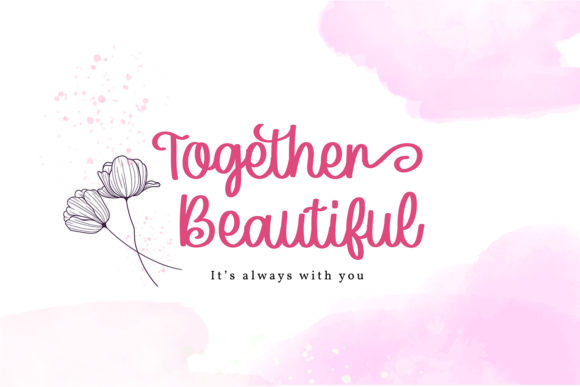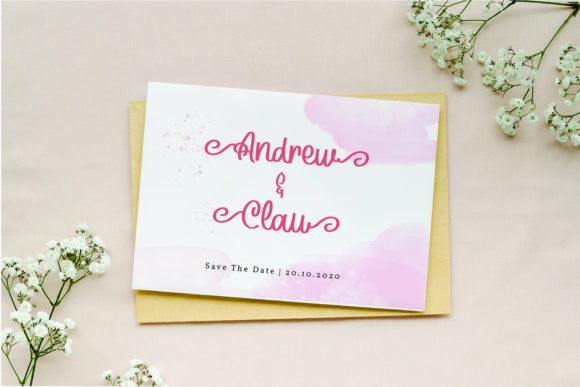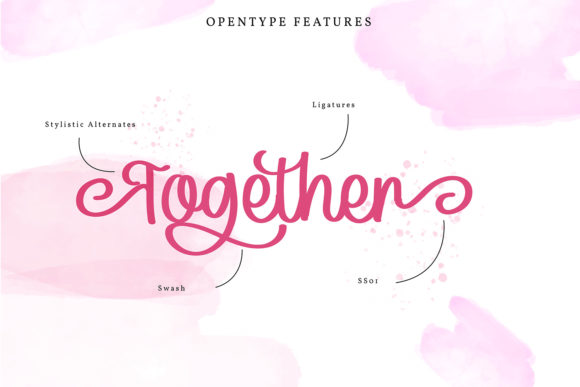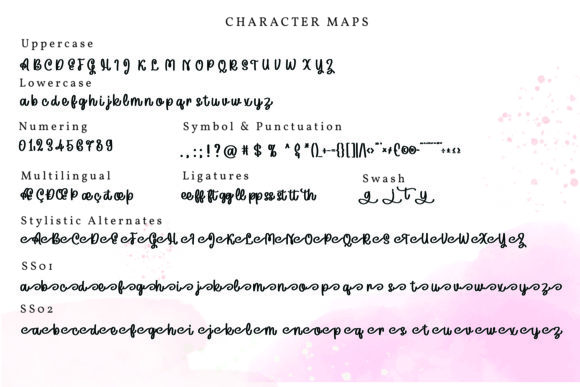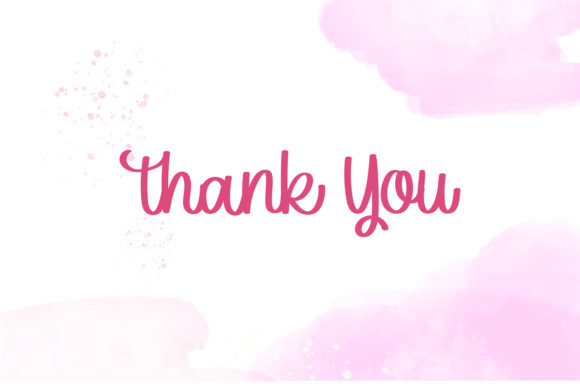
Introduction to Layvin Font
Have you ever found yourself staring at a blank canvas, a blank page, or a blank screen, desperately searching for the perfect font to bring your creative project to life? I know I have. It’s that moment when all the ideas and visions in your head start to swirl together, and you’re left wondering what would be the perfect design resource to tie everything together. For me, that moment came when I discovered the enchanting Layvin Font.
This elegant handwritten font is more than just a pretty face – it’s a game-changer. With its beautiful and well-balanced characters, Layvin Font is the perfect addition to any creative project. Whether you’re working on a design project, a logo, or even a free download template, Layvin Font is sure to make your work stand out.
What sets Layvin Font apart is its versatility – it features a varying baseline, smooth lines, gorgeous glyphs, and stunning alternates, making it a high-quality design resource that can be used in a wide range of creative applications.
Key Features of Layvin Font
- Includes multiple font styles, making it a versatile design resource for different creative projects.
- Unique characteristics: Layvin Font features a modern and elegant design, making it suitable for a wide range of creative projects.
Honest Review: Layvin Font
What works well: ✨ The Layvin Font offers a high-quality, modern design that’s perfect for creative projects. The font’s transparent background makes it easy to layer with other design elements. I’ve used it for a variety of projects, from branding to typography-focused designs.
Some of the key features that stood out to me include:
- High-quality, detailed design
- Perfect for creative projects and branding
Limitations: ⚠️ While the Layvin Font is a great resource, it’s not ideal for projects that require a lot of customization. The font’s design is quite specific, so it may not be the best choice if you need a lot of flexibility.
Overall, I’m really impressed with the Layvin Font. It’s a great addition to any designer’s library, and I’m excited to continue using it for my future creative projects.
Tips for Getting the Most Out of Layvin Font
Use Layvin Font in creative projects such as graphic design, logo design, and typography. Experiment with different font sizes, colors, and styles to add visual interest to your design.
Layvin Font is commonly used in:
Graphic design projects
Logo design
Branding materials
Alternatives to Layvin Font
Pacifico is a beautiful script font that can add a touch of elegance to any creative project. It’s perfect for designing invitations, wedding cards, or any other design that requires a sophisticated look. Pacifico is a high-quality font that can be downloaded for free, making it an excellent alternative to Layvin Font. When to use: Wedding invitations, elegant designs, and formal events. Comparison: Pacifico has a more elegant and refined look compared to Layvin Font.
Great Vibes is a modern script font that’s perfect for designing creative projects that require a fun and playful touch. It’s ideal for posters, flyers, and social media graphics. Great Vibes is a free download that offers a transparent background, making it easy to use on any design. When to use: Posters, flyers, social media graphics, and fun designs. Comparison: Great Vibes has a more playful and modern look compared to Layvin Font.